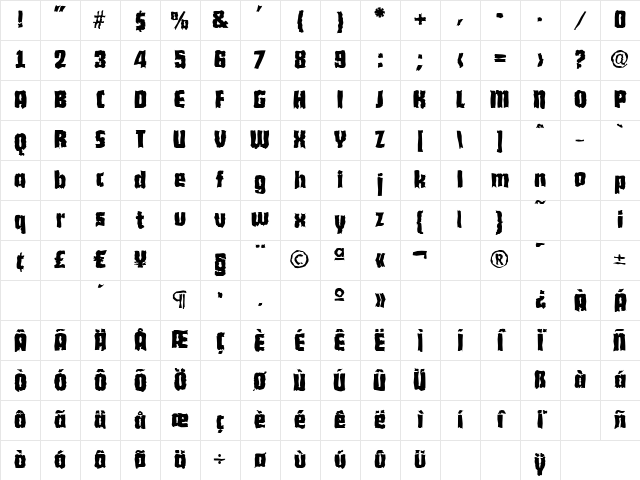
Complete AllisonBeckerRandom Bold glyph index. Displaying only characters natively supported by AllisonBeckerRandom Bold font.
AllisonBeckerRandom is a composed and adaptable typeface that performs quietly and consistently across a wide range of design contexts. Its bold stroke weight gives it real presence on the page.